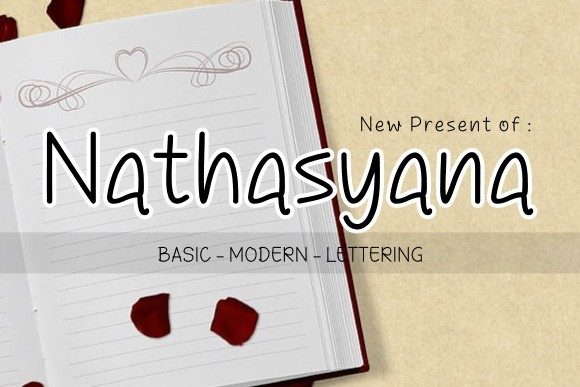
Introducing Nathasyana Font - The Epitome of Modernity and Elegance for Your Digital Creations
In the realm of digital artistry, Nathasyana Font emerges as a captivating masterpiece, a symphony of flowing lines and graceful curves that will transform your creative visions into captivating realities. This exquisite script font, meticulously crafted by the talented artisans at Zkhai Creative Studio, embodies the essence of contemporary design, blending timeless elegance with a distinctly modern flair.
With its innate ability to elevate your creations, Nathasyana Font stands as the perfect choice for a multitude of projects. Envision your brand's logo adorned with this font's alluring script, exuding both professionalism and an artistic edge. Let Nathasyana Font dance across your invitations and stationery, adding a touch of sophistication and charm to life's special moments. Picture your social media posts adorned with this font's captivating allure, drawing in followers with its undeniable charisma.
Nathasyana Font's versatility extends far beyond the digital realm. Unleash its potential in the world of print, where it will add a touch of elegance to your business cards, brochures, and flyers. Let your imagination run wild as you explore the endless possibilities that await with this remarkable font.
Nathasyana Font is more than just a collection of characters; it's an artistic expression that speaks to the heart and ignites creativity. Its beauty is undeniable, its charm undeniable. Allow Nathasyana Font to be your creative partner, transforming your ideas into captivating realities that leave a lasting impression.